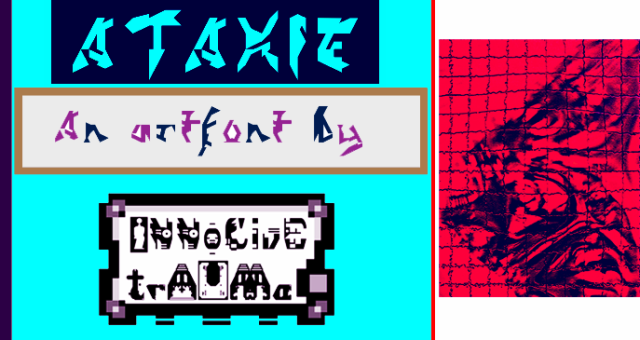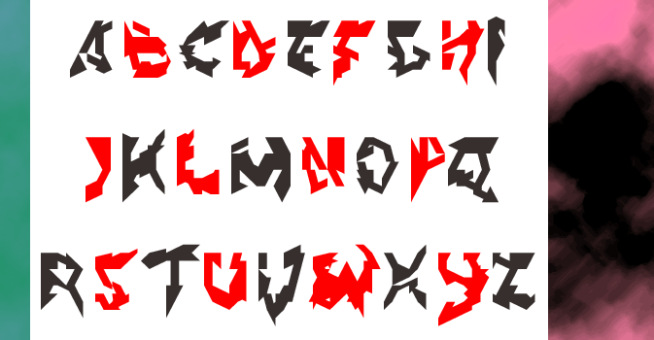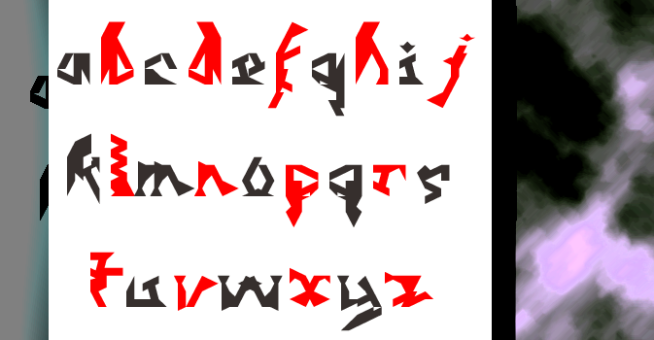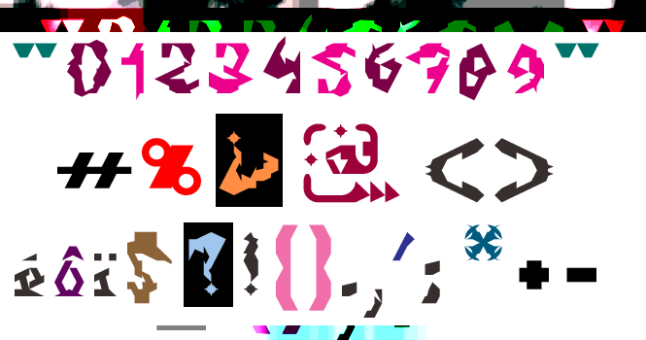
trAUMa 40 / Ataxie
"Ataxie", like all the "trAUMa" series, works at the frontier between Art & Type Design, Figuration & Abstraction, each font is a comprehensive world in which every glyph is a "living" entity. But put together they can produce your messages in the most accurate way.